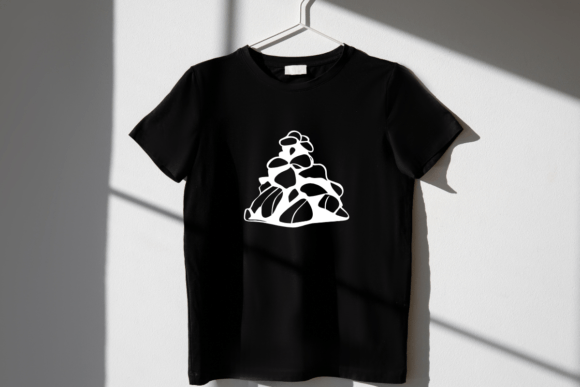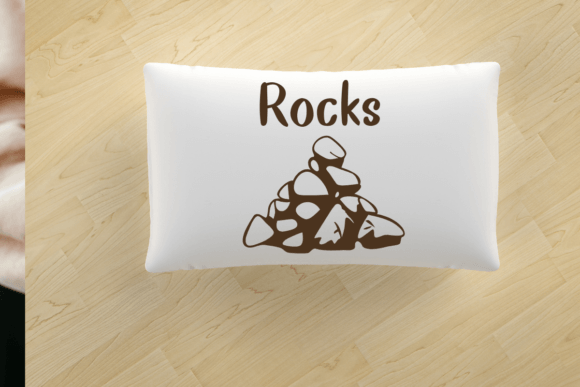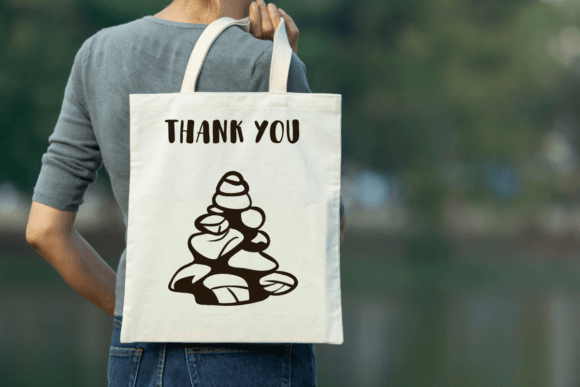
Introduction to Rocks Font
Rocks is a dingbats font with a natural sketched theme.
This font can enhance your creative projects such as invitations, DIY, crafts, decorations, logos, and many other creative ideas .
Rocks Font offers exceptional quality and versatility, making it a valuable addition to your design toolkit. Whether you’re creating for personal projects or commercial use, Rocks Font delivers professional results.